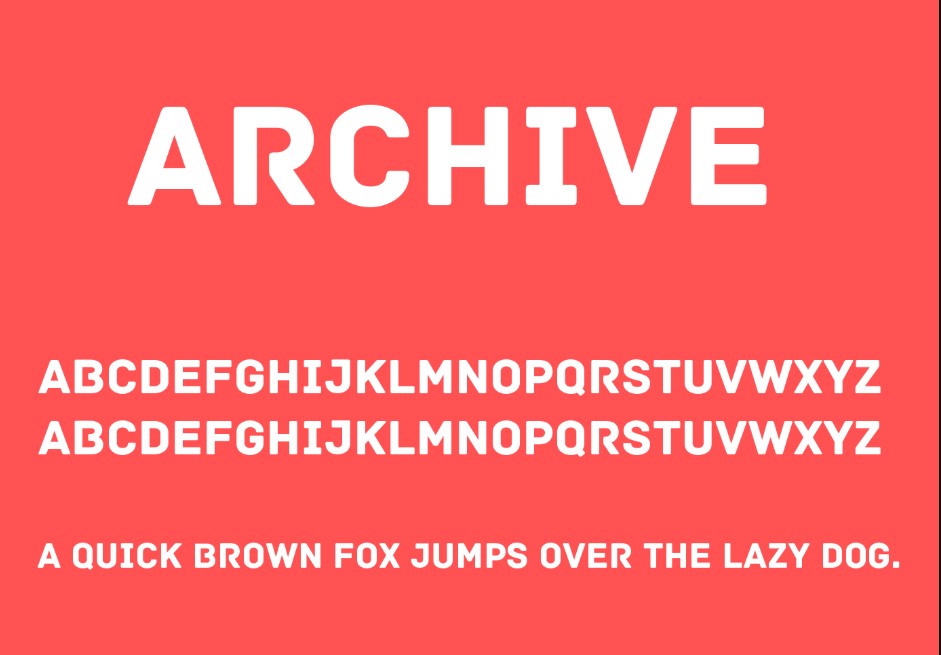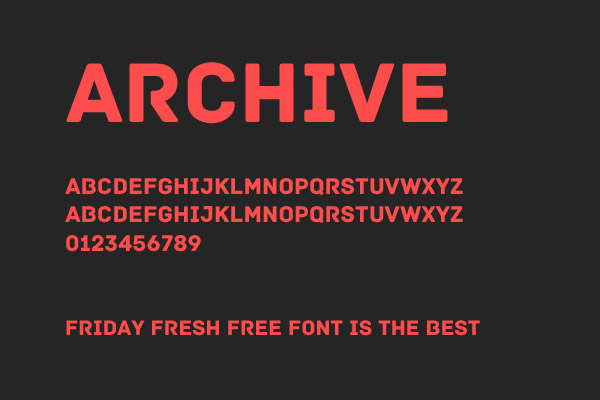
Archive Font
Archive Font is one of the top rated typefaces inside the google fonts. This typeface shares similarity with the Aquino and Bebas font. Now, the tremendous’s producers took the all proper reserved for this business corporation agency enterprise business enterprise. Its headquarter positioned downtown, north.
At the equal time. Because of the fact, pretty some portions of designers from the great fashion of the fields whiling to artwork collectively with that nexa rust font and create some new designs for advertising and designing. Archive Font Free At the same time as you furthermore are taken into concept one, in truth, everyone in each simply considered one in absolutely all them then you definately are probably inside the right state of affairs. It has availably pinnacle-notch in a single massive type but this kind has many types of baloo font.
Similarly broadening of the font own family. This font is also referred to as a hammered font this is used inside the google fonts.